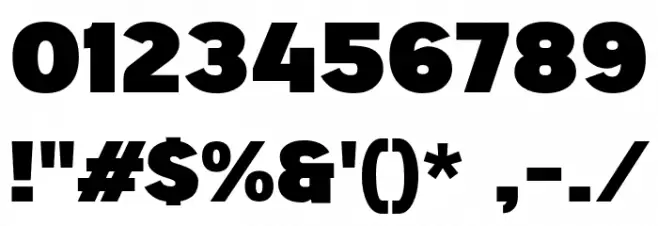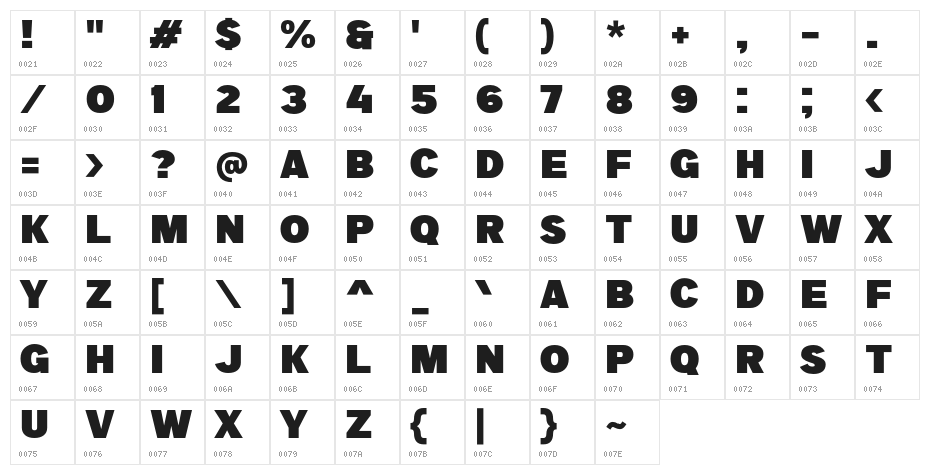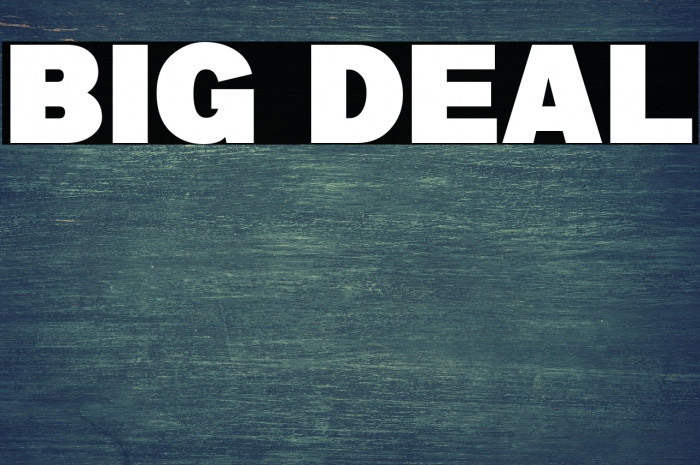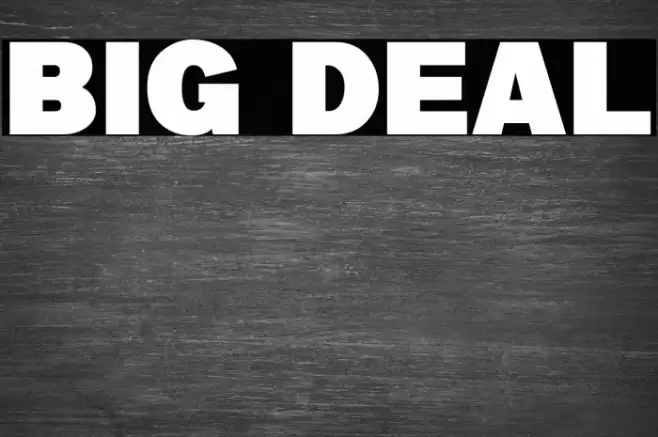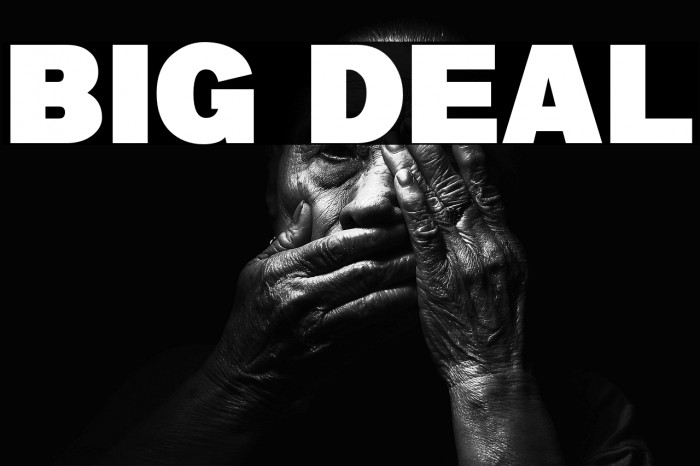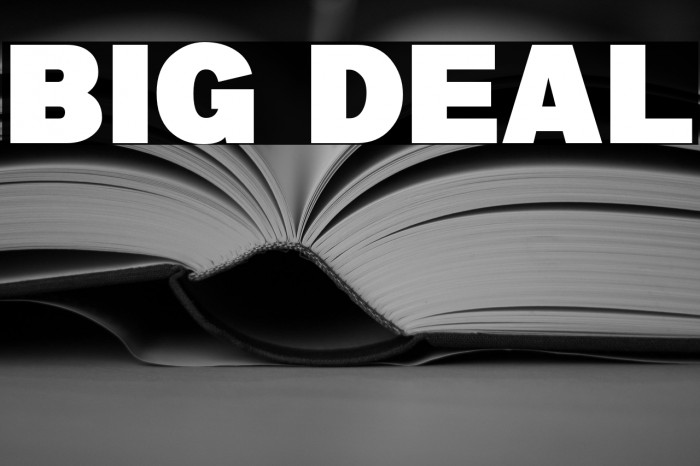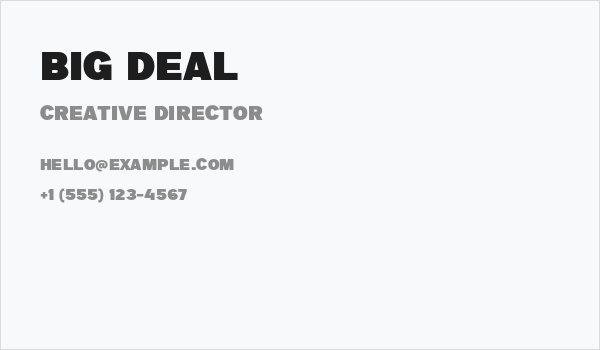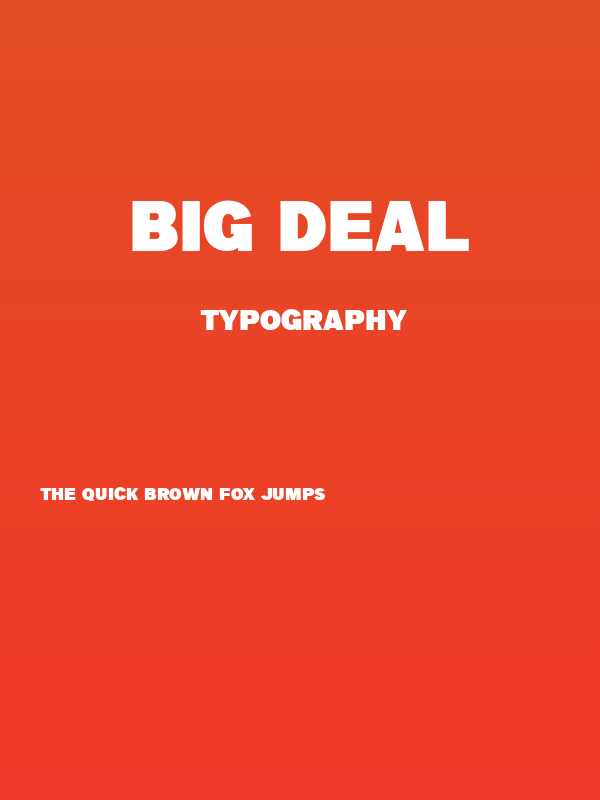
Big Deal Font
Big Deal Description
This bold and impactful font features thick, uniform strokes that create a strong visual presence. The characters are uppercase, with a consistent height and width, giving the font a blocky and robust appearance. The numbers and special characters maintain the same boldness, ensuring a cohesive look across all elements. The font's design is straightforward, with no additional embellishments or serifs, emphasizing clarity and readability. Its bold nature makes it ideal for grabbing attention and making statements.
| Proposed Projects | Ideal for headlines, posters, banners, and any project requiring a strong visual impact. |